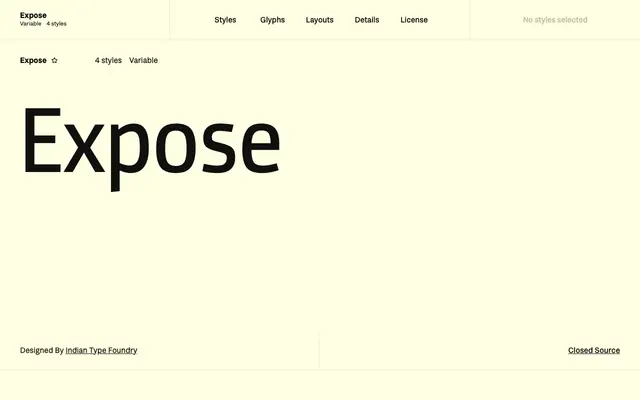
Expose
A constructed sans by Indian Type Foundry that blends engineered letterforms with typewriter aesthetics, aimed at headlines and editorial work.
Expose draws on letterforms that feel drafted by engineers, then crossed with avant-garde takes on typewriter faces. Its counters are almost squared off and several diagonal strokes redirect near one end, giving the design a fixed-width quality despite being proportionally spaced. An unusual double-storied 'g' adds a subtle quirk to an otherwise rigorously structured family of four weights, available as static fonts and a variable weight axis.
Described explicitly as a constructed sans, Expose draws from engineered letterforms and avant-garde typewriter aesthetics, with squared counters and redirected diagonals that give it a fixed-width feel despite proportional spacing.